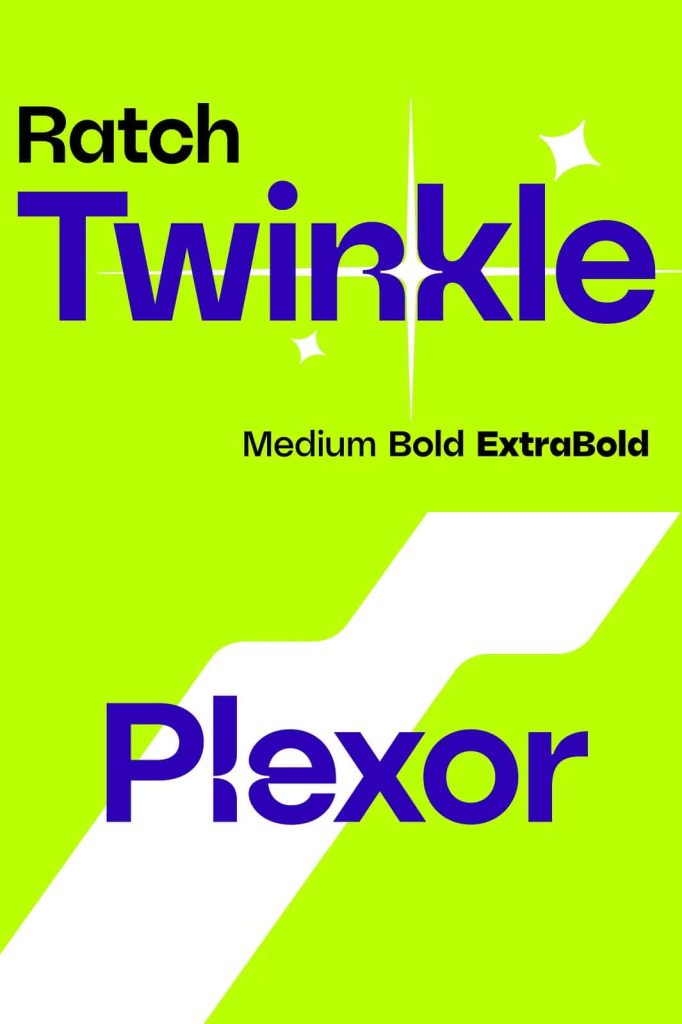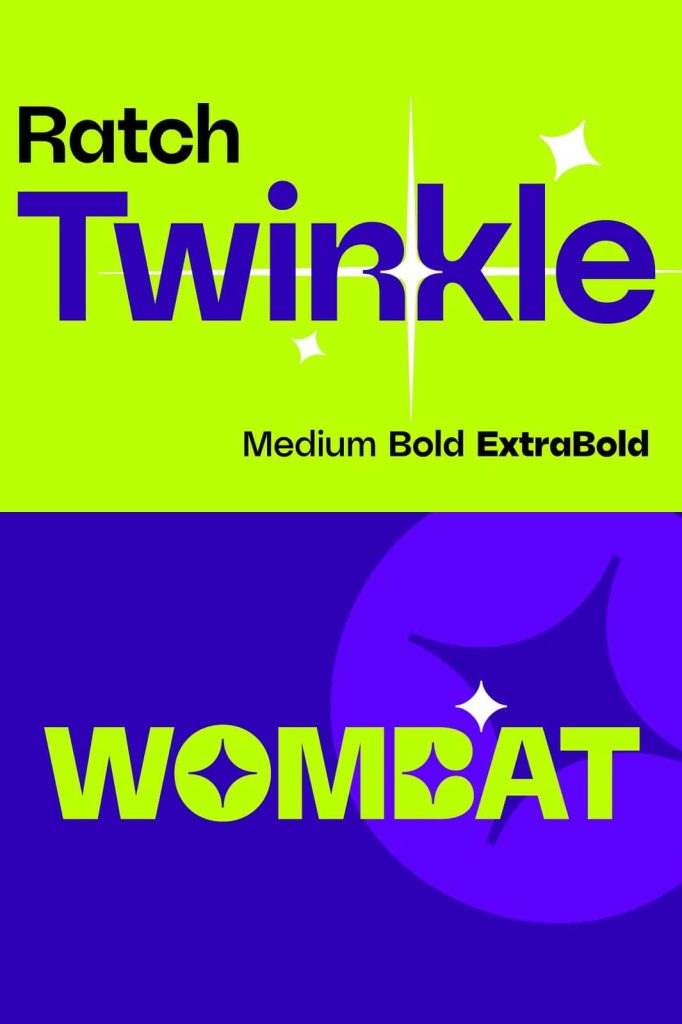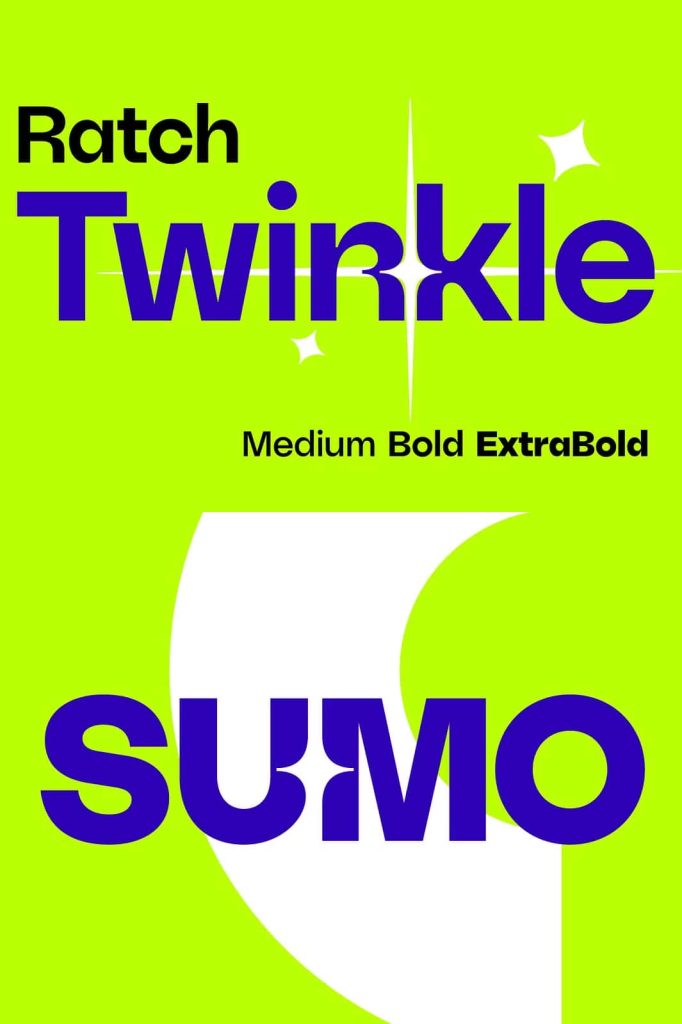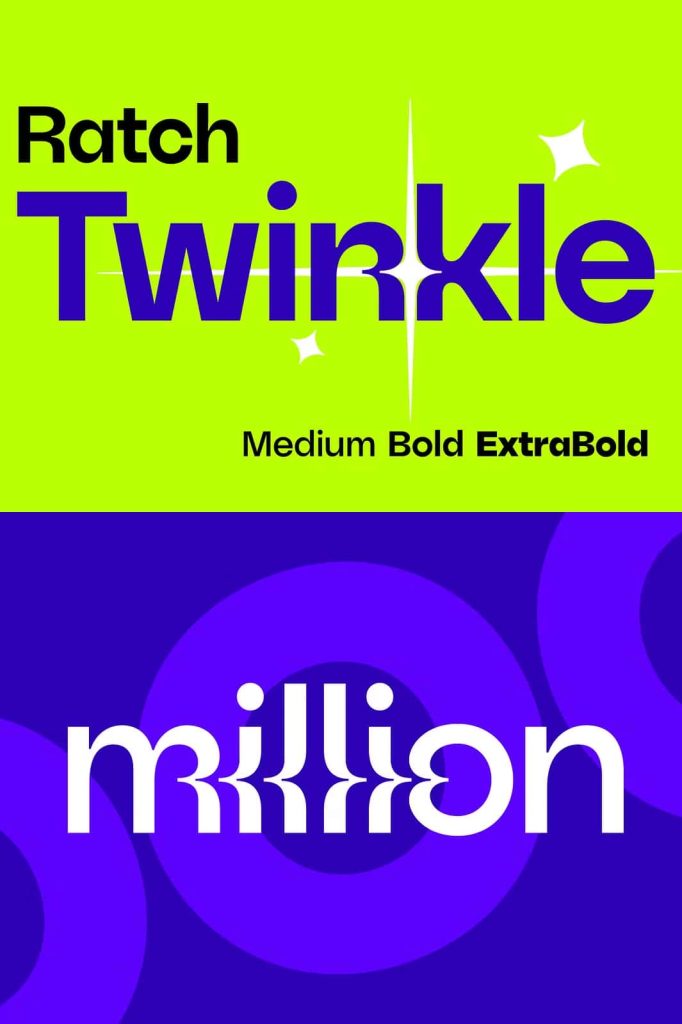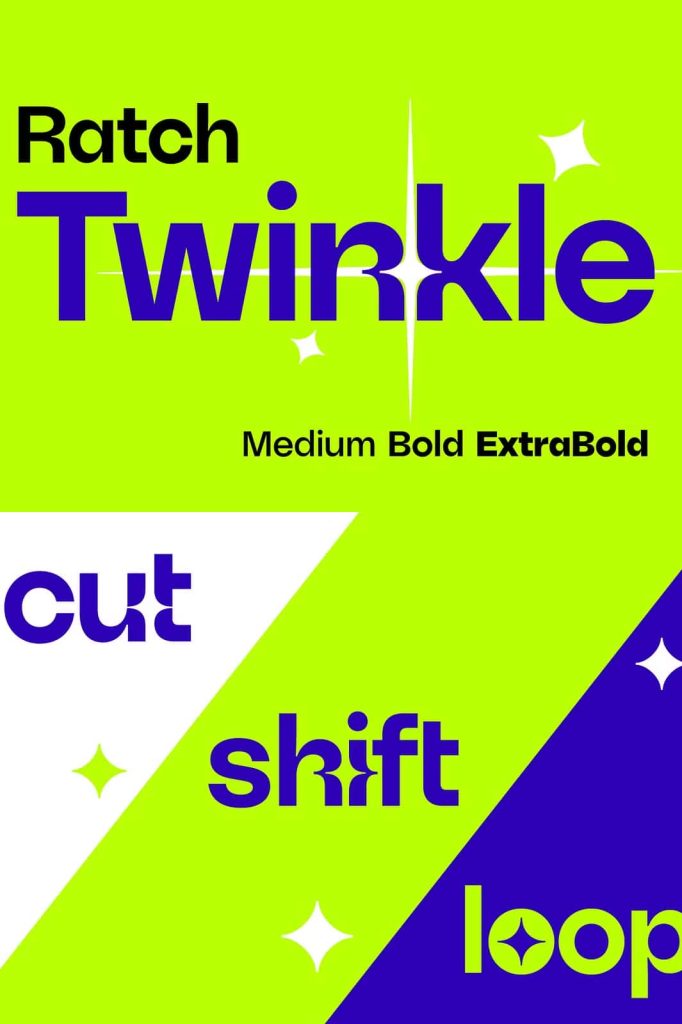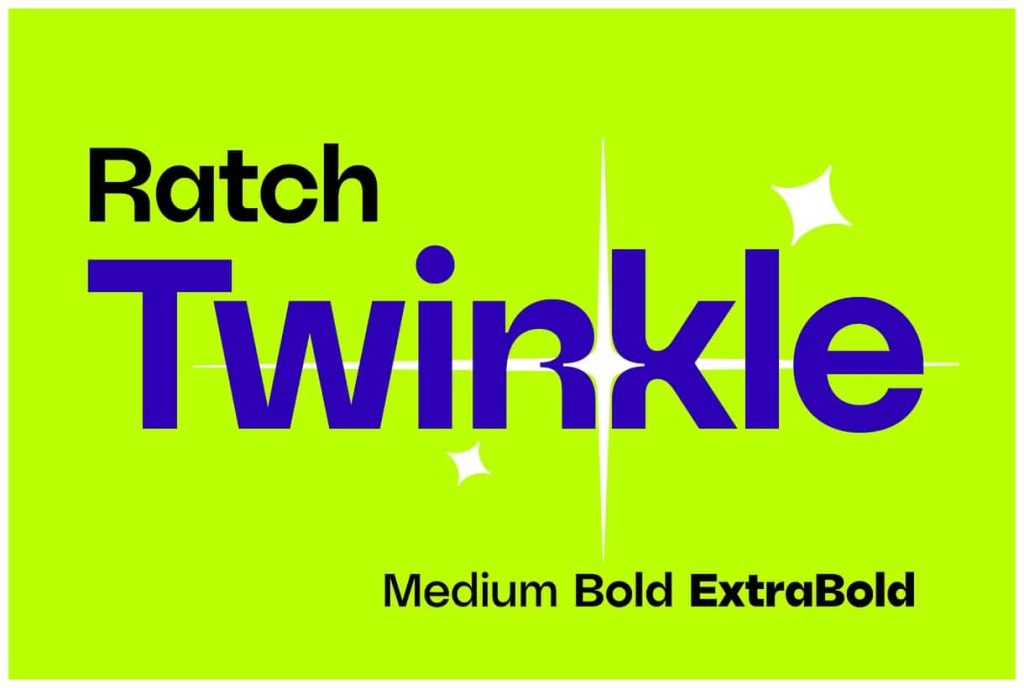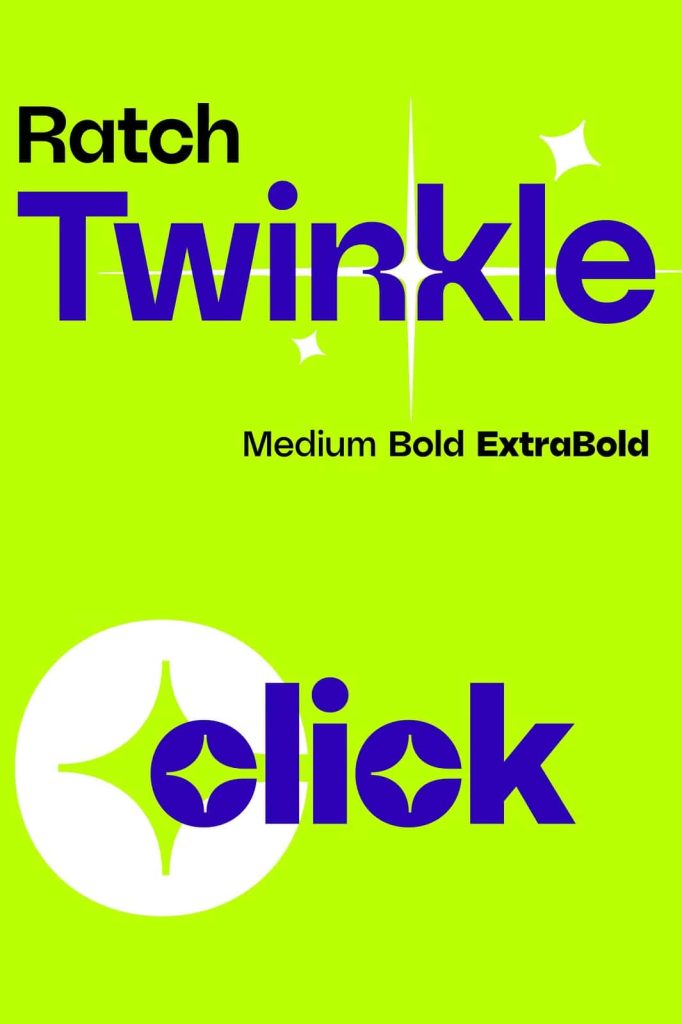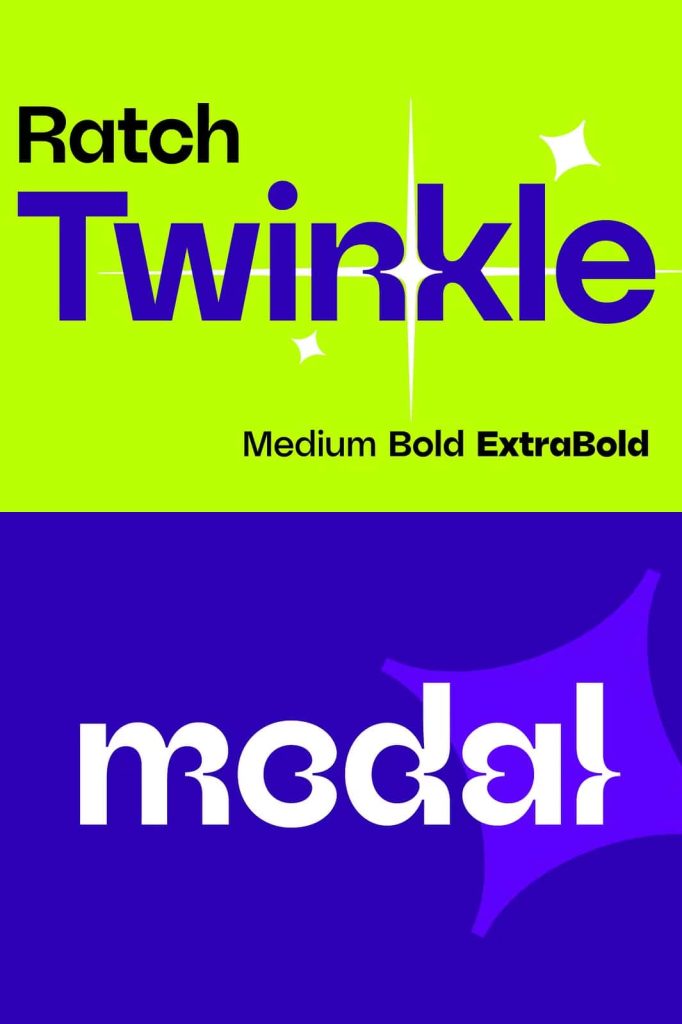
Ratch Twinkle is a modern geometric grotesk typeface available in three weights: Medium, Bold, and ExtraBold. Designed as a companion to the Ratch font family, it features a wide range of alternate characters that allow for highly effective and personalized lettering.